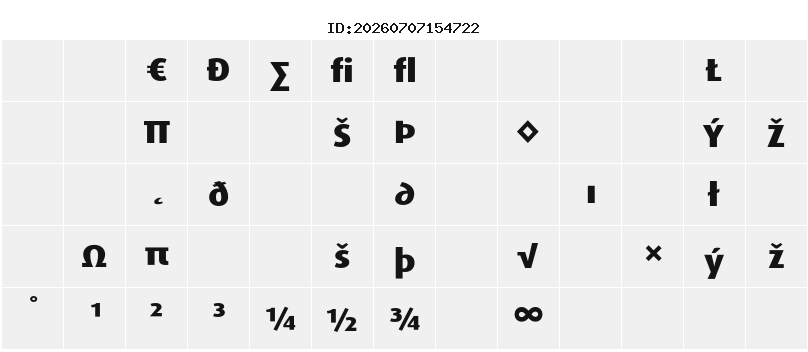
DaxWide ExtraBoldExpert Preview
About DaxWide ExtraBoldExpert.otf
DaxWide ExtraBoldExpert.otf is a modern, elegant sans-serif font designed for ultimate readability and visual harmony. Perfect for branding, headlines, web design, and print materials.